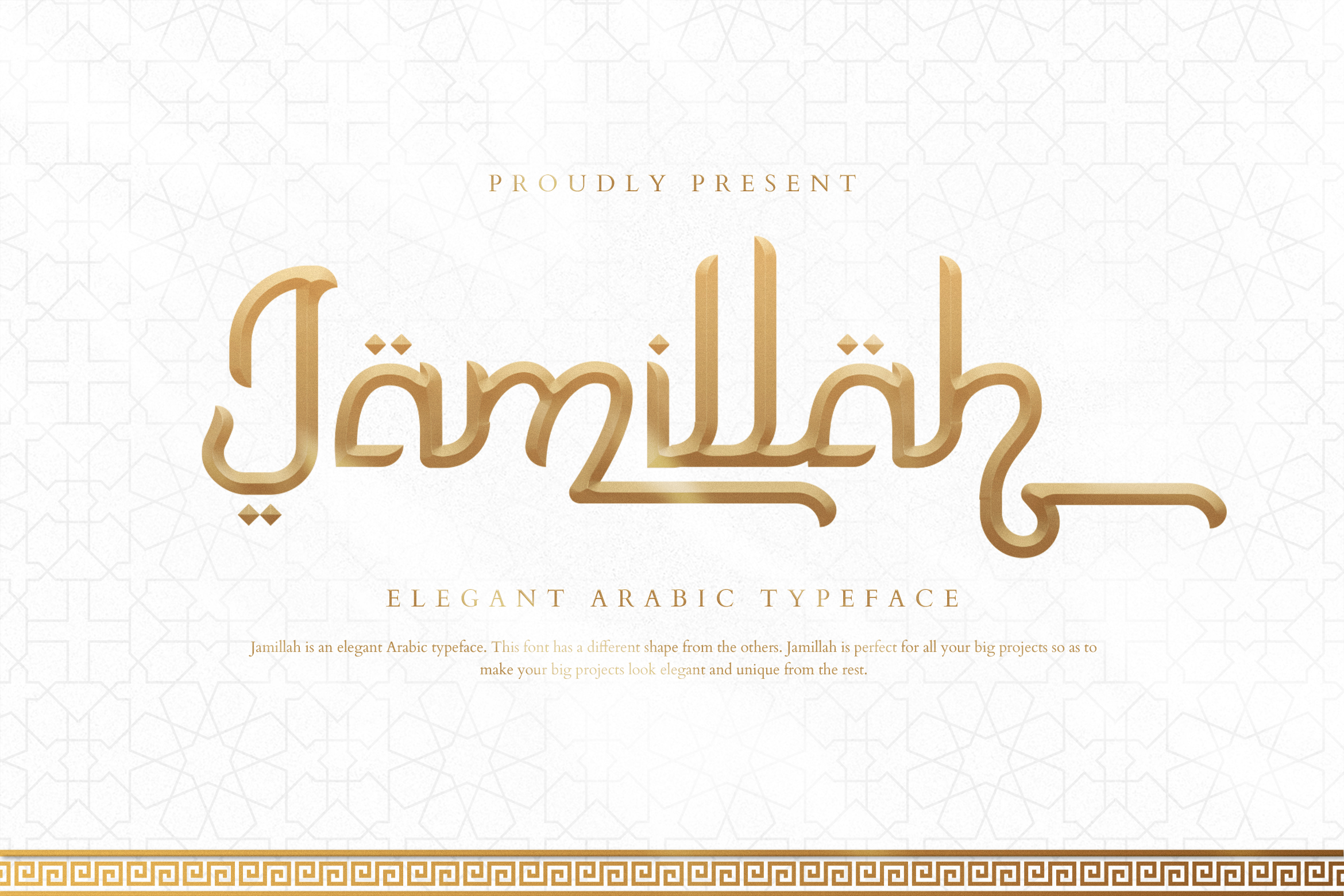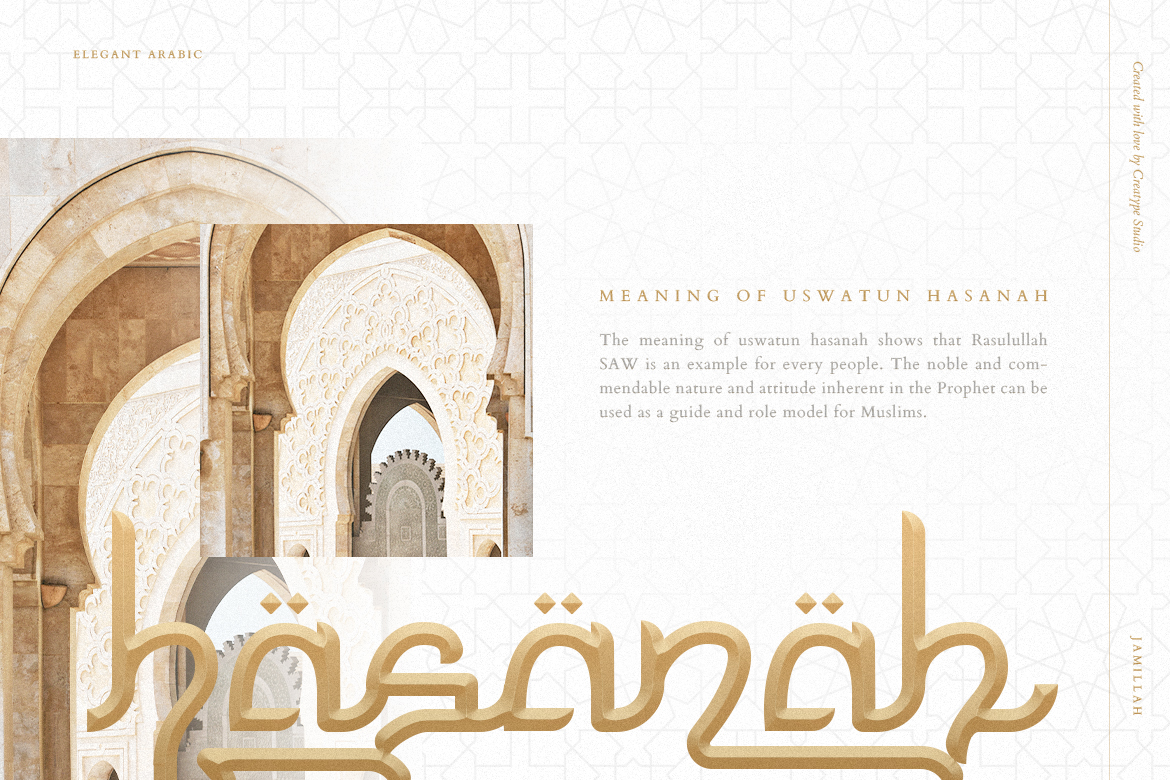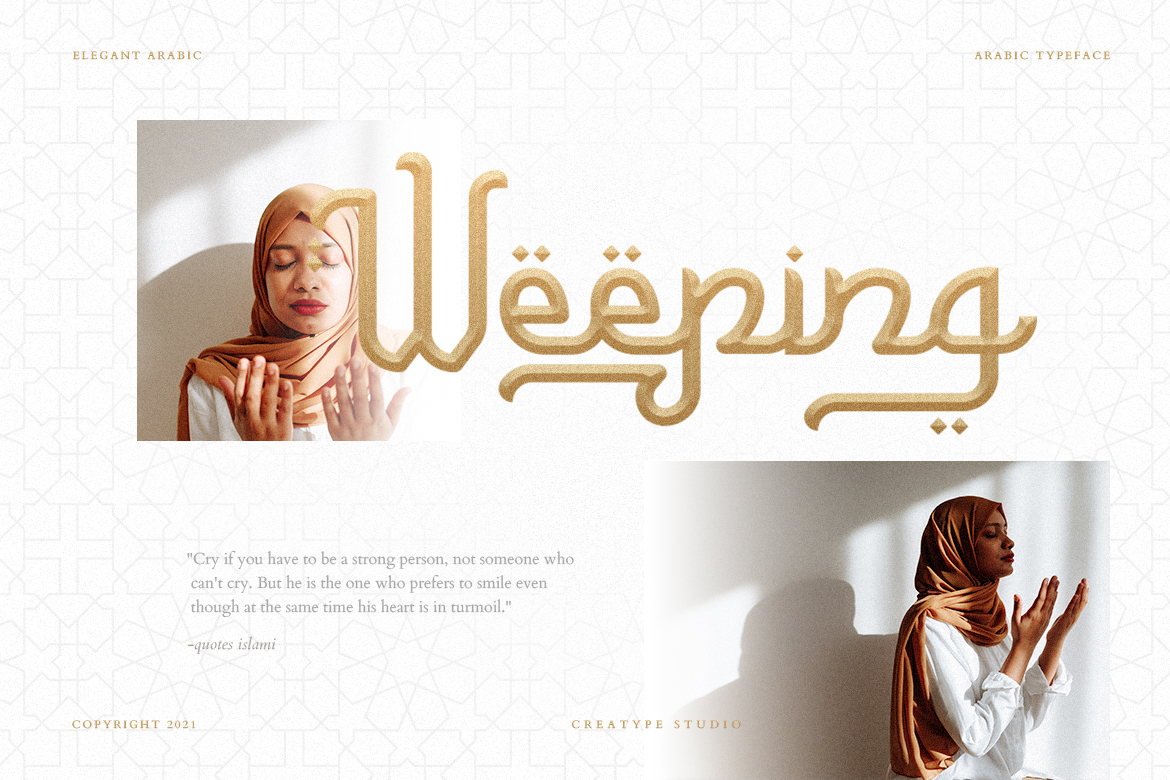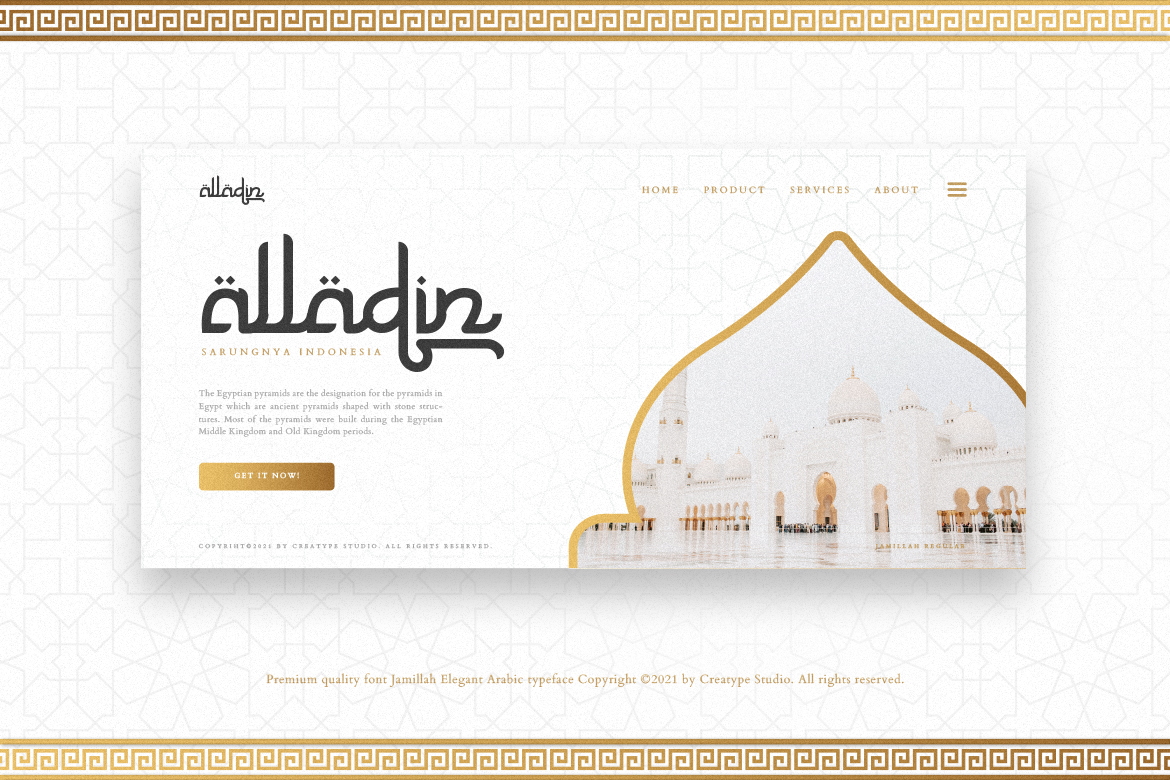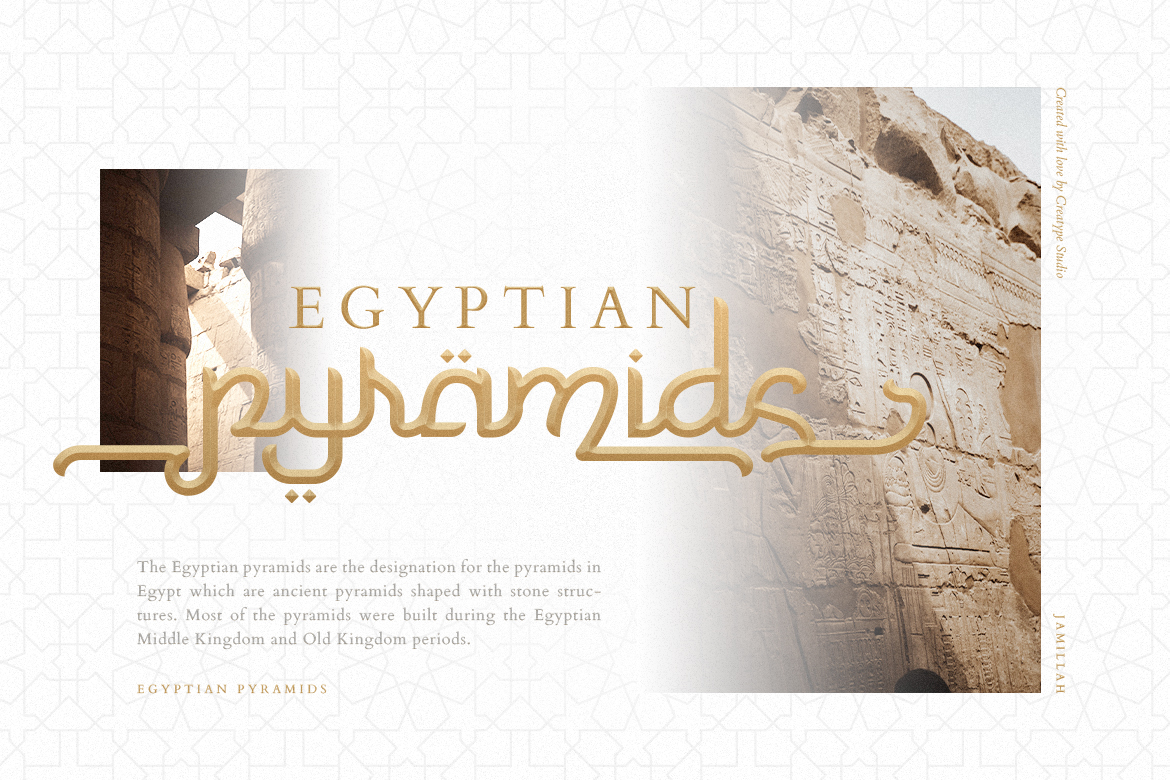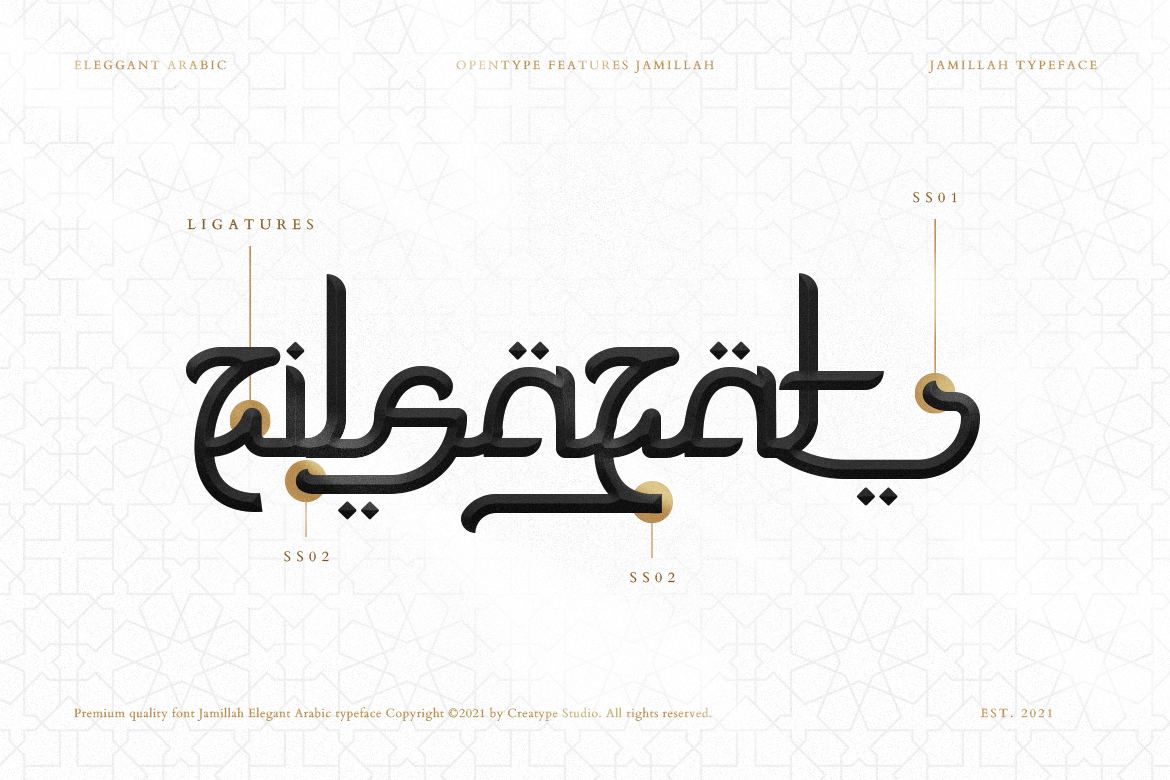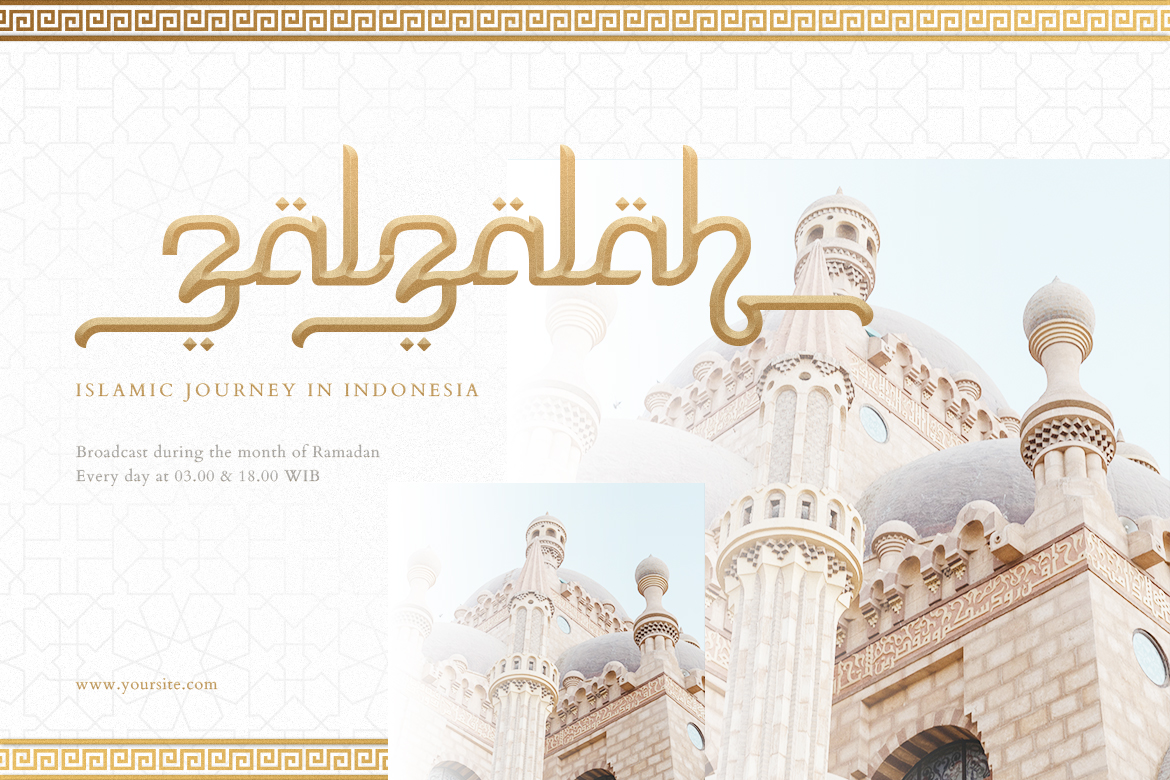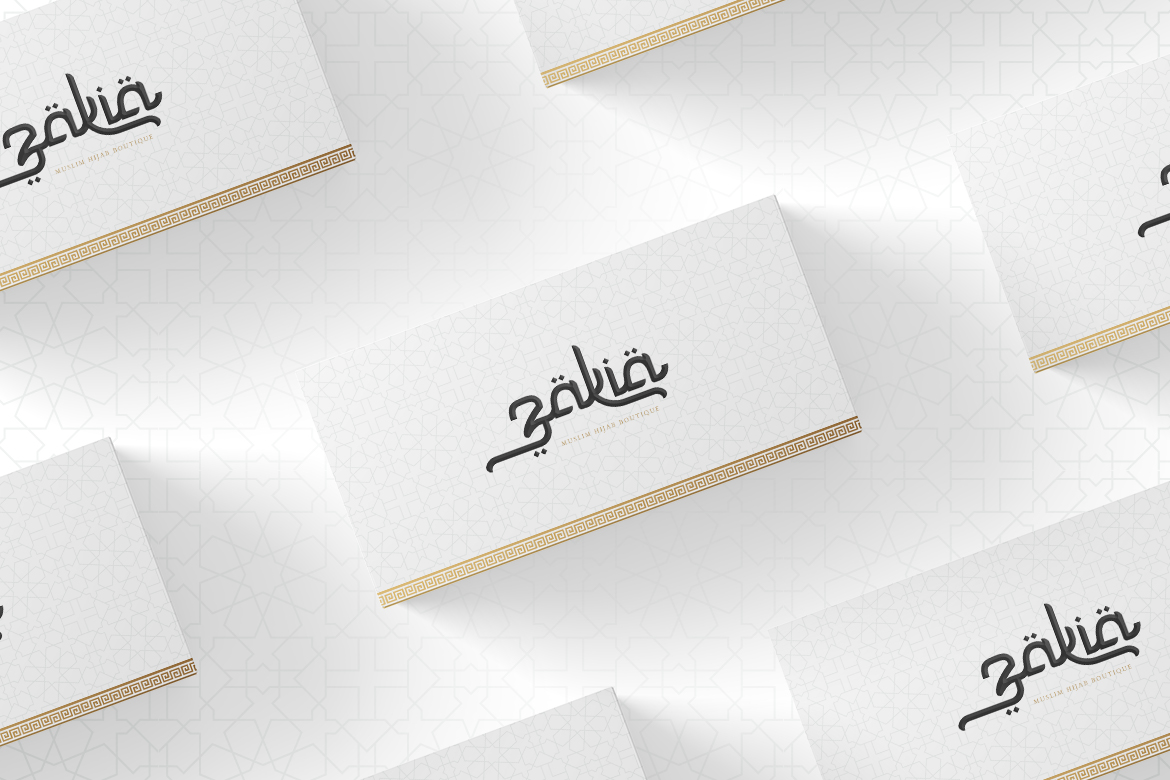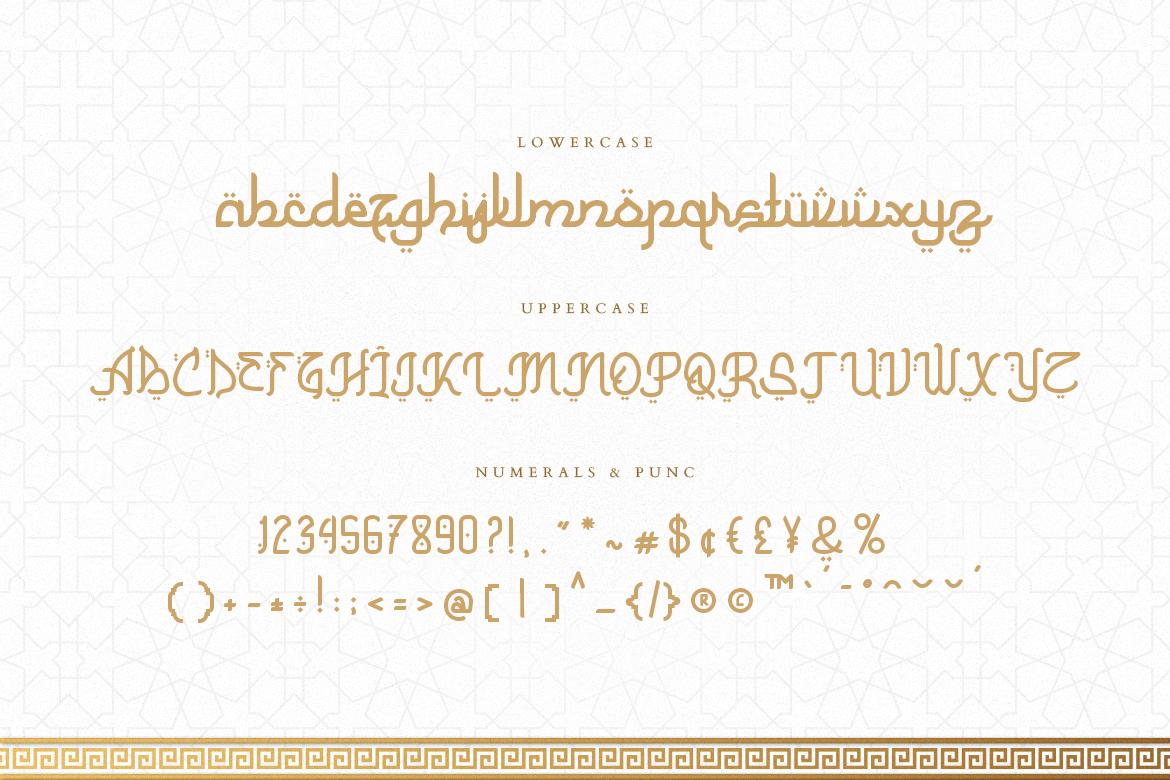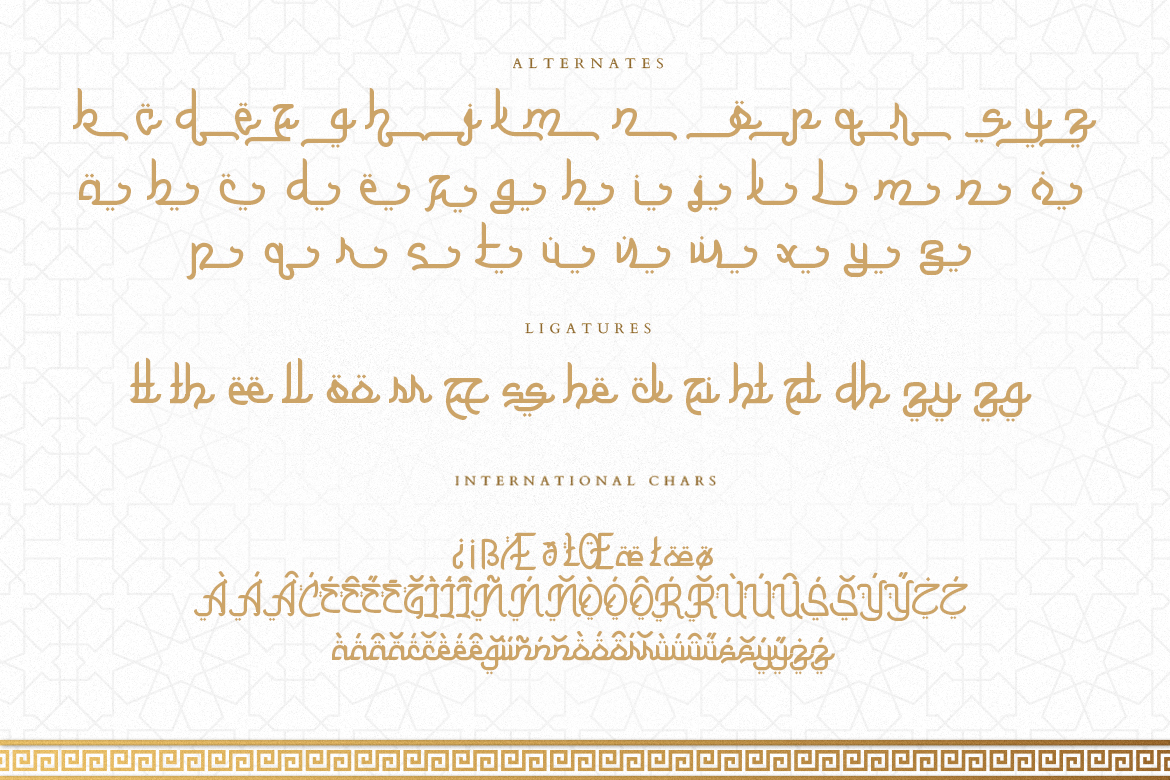
An Arabic letter is the oldest letter that has been used in many eras. Creatype made arabic letters into a typeface called Jamillah. This vintage typeface is perfect for every need.
Jamillah is perfect for branding projects, logo, wedding designs, social media posts, advertisements, product packaging, product designs, label, photography, watermark, invitation, stationery and any projects that need handwriting taste.
Jamillah Elegant Arabic